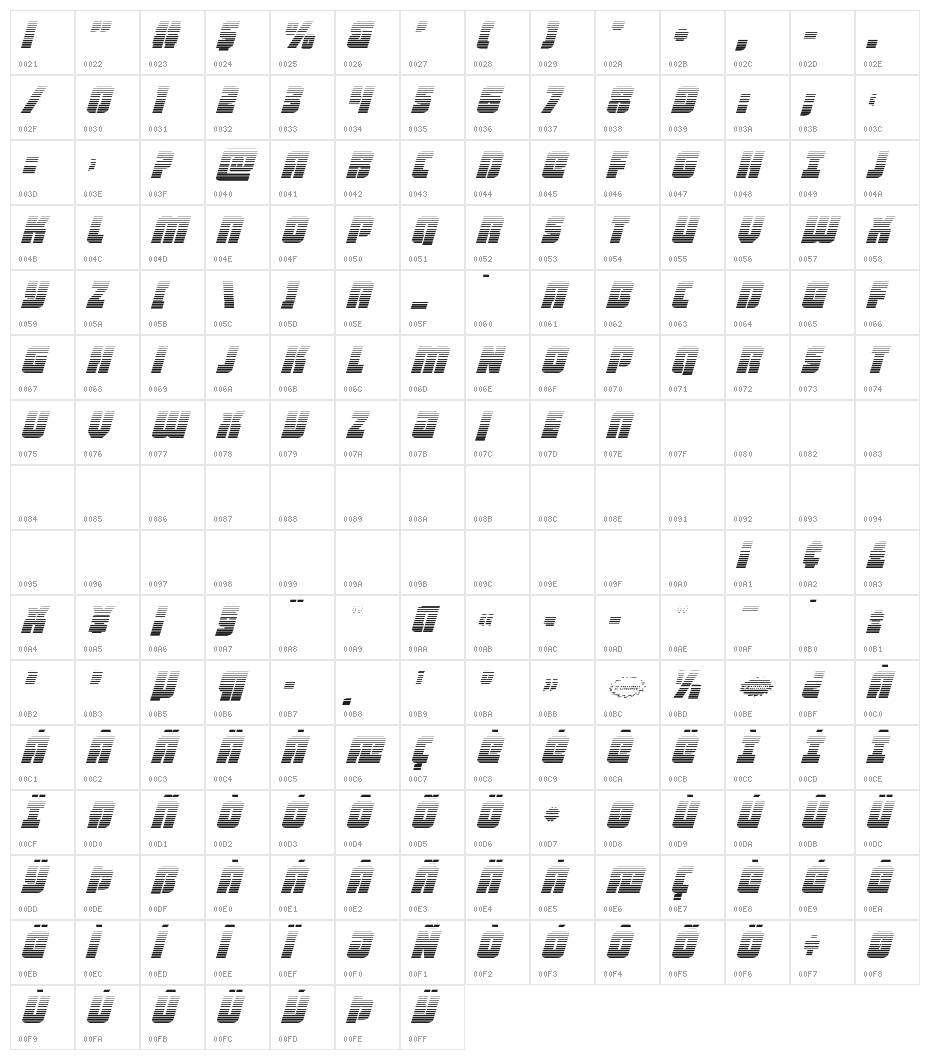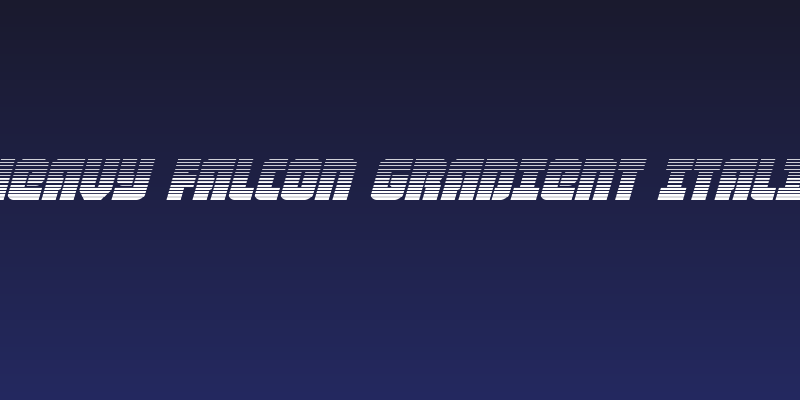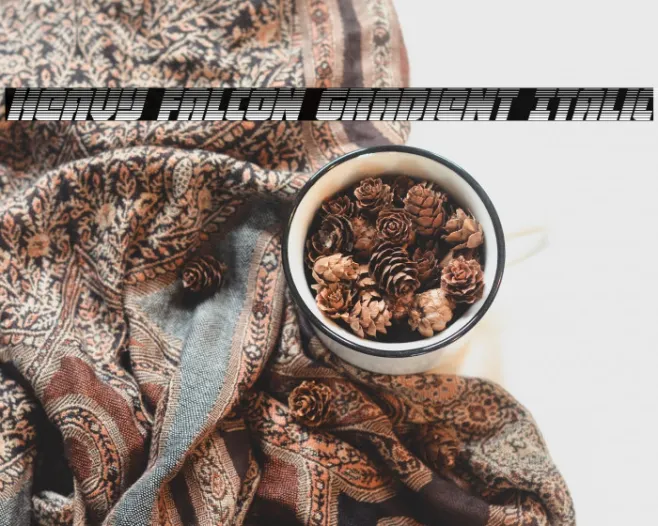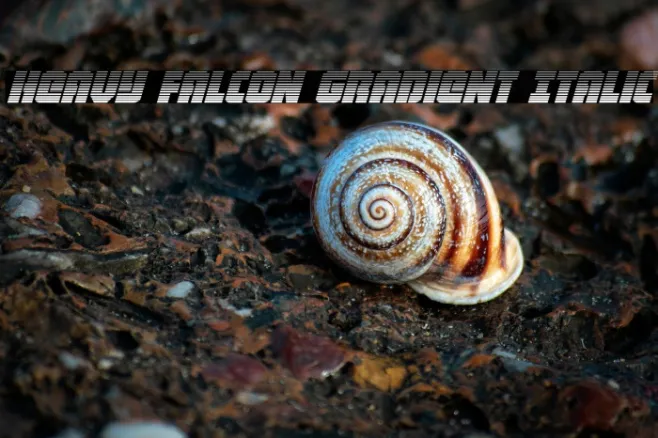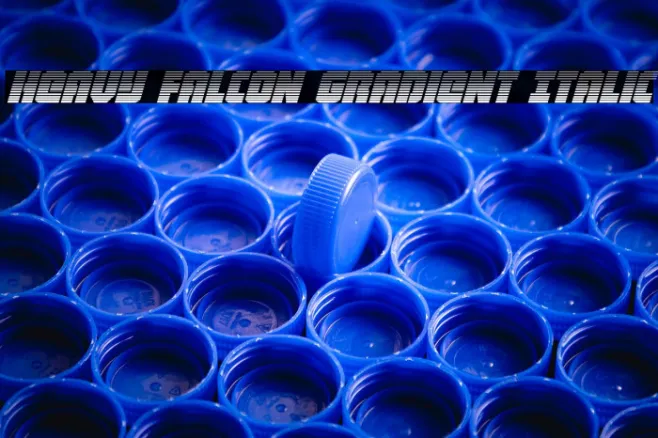
Heavy Falcon Gradient Italic Font
Heavy Falcon Gradient Italic Description
This font features a bold, italicized style with a distinct gradient effect that gives it a dynamic and modern appearance. The characters are designed with a heavy weight, emphasizing their presence and making them ideal for impactful designs. The gradient effect creates a sense of movement and energy, making it suitable for projects that require a futuristic or high-tech look. The italic slant adds a sense of speed and direction, enhancing the overall dynamic feel of the font. The characters are tightly spaced, contributing to the compact and cohesive appearance of the text. This font is perfect for headlines, logos, and any design that aims to capture attention with a bold and modern aesthetic.
| Proposed Projects | Suitable for futuristic branding, tech-related logos, sports team merchandise, and dynamic advertising campaigns. |